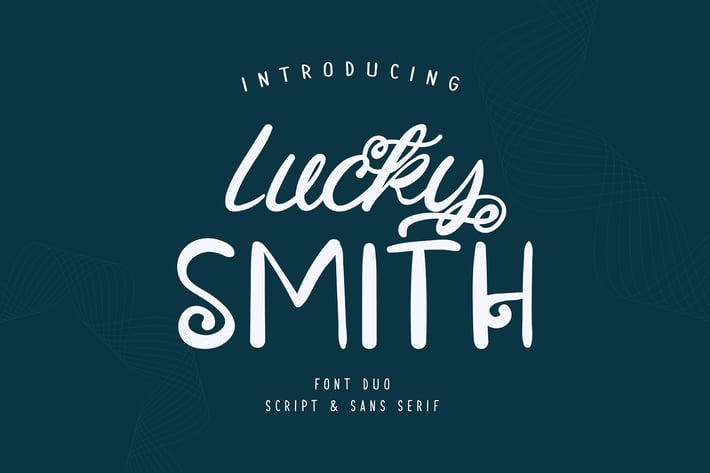
Lucky Smith | Font Duo Script & Sans Serif
Lucky Smith | Font Duo Script & Sans Serif a font that is very fresh and unique style handmade with 2 different style, So beautiful on invitation like greeting cards, branding materials, business cards, quotes, posters, and more!